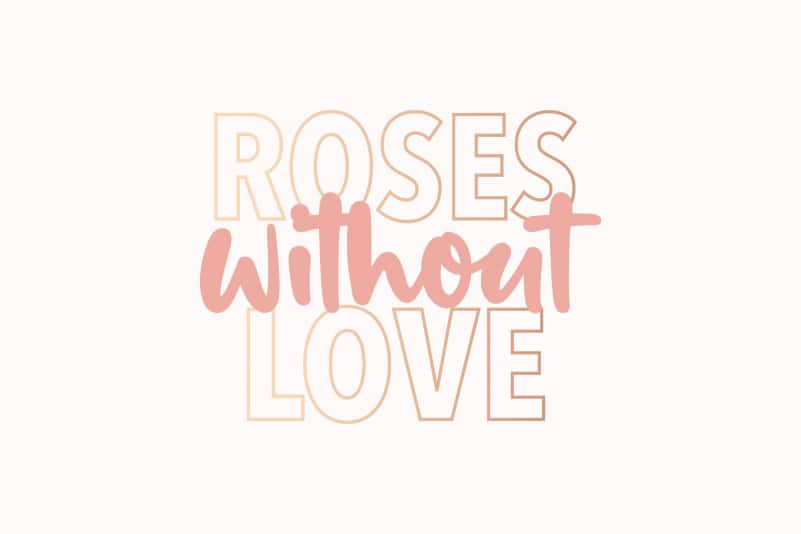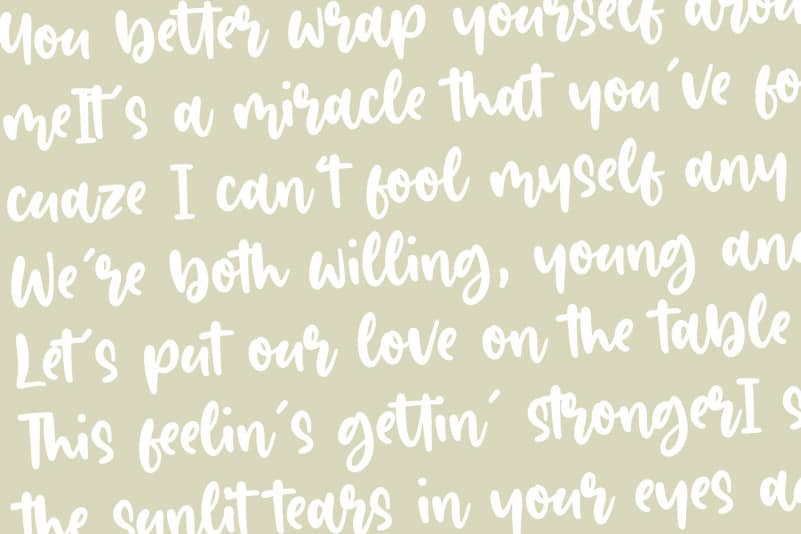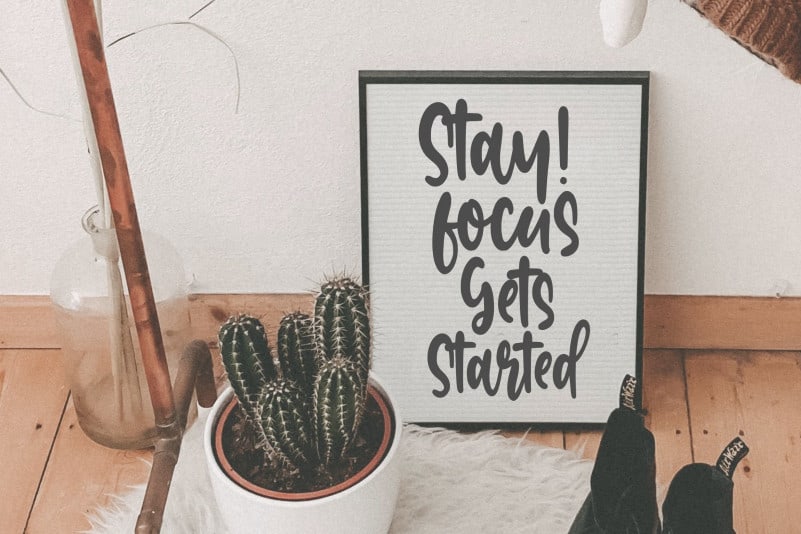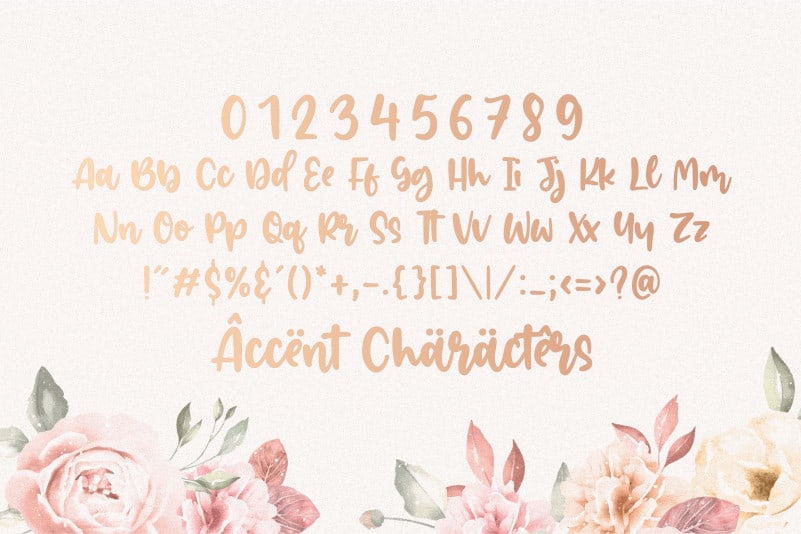
Jacklin Modern Handwritten Font
Proudly Present, Jacklin Modern Handwritten Font.
Jacklin is a Modern Handwritten Font.
Jacklin is perfect for product packaging, branding project, megazine, social media, wedding, or just used to express words above the background.